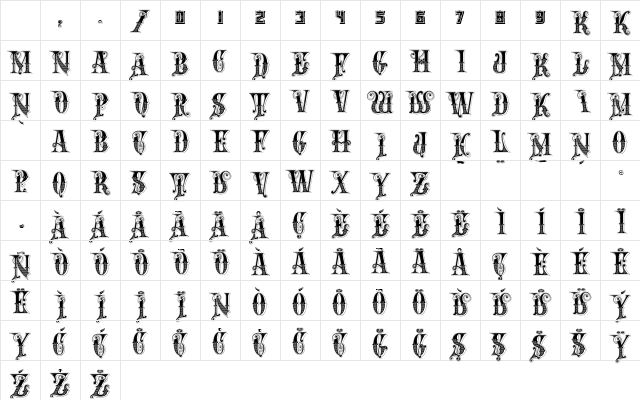
Rough Riders Alt Caps embraces imperfection - its rough, textured character adds raw authenticity to designs that want to feel lived-in and unconventional.